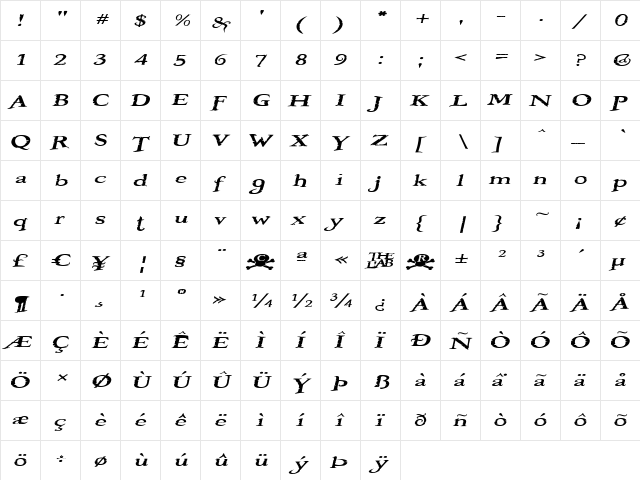
Booter - One Five Regular
| Designer | Outlines by Graham Meade, space geometry by Apostrophe ('). |
Booter - One Five is a composed and adaptable typeface that performs quietly and consistently across a wide range of design contexts.